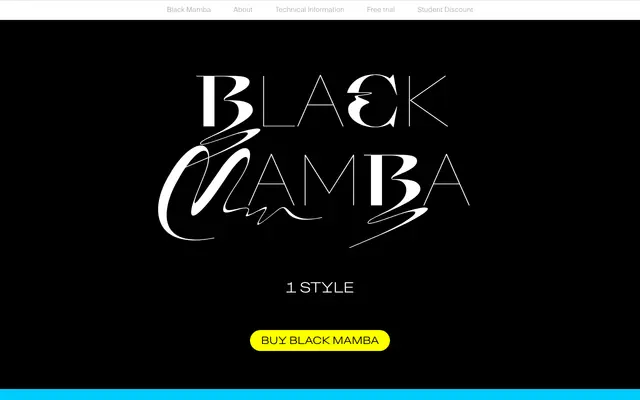
Black Mamba
A display serif derived from Swiss Typefaces' SangBleu family, distinguished by a custom set of alternate characters.
Built on the foundations of the SangBleu typeface, Black Mamba introduces a suite of alternate characters designed by Liudmila Bredikhina to give the family a distinct expressive register. Font engineering is credited to Christoph Koeberlin. The result sits between classical transitional proportions and something more characterful, suited to editorial titles and brand work where SangBleu's refinement is wanted with added personality.
Black Mamba is derived from the SangBleu typeface family by Swiss Typefaces, a transitional serif with strong classical proportions and refined stroke contrast. The alternate character set suggests a display-oriented variant with distinct stylistic personality.